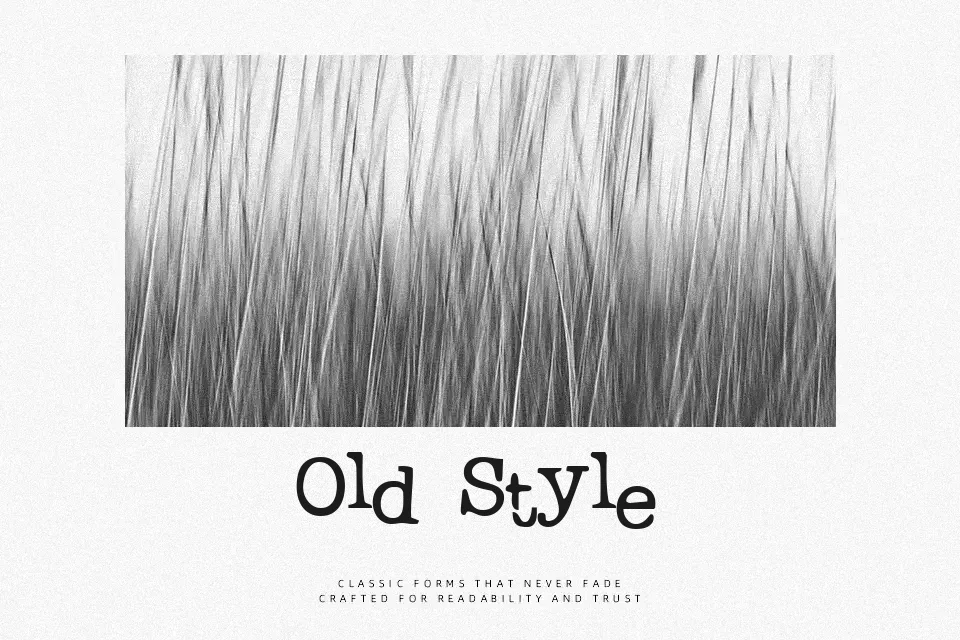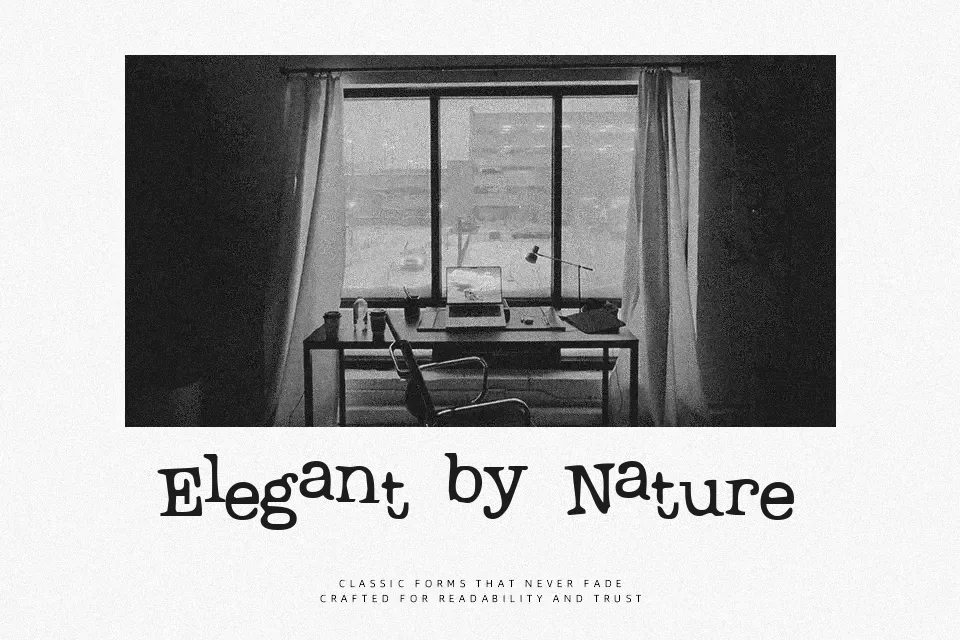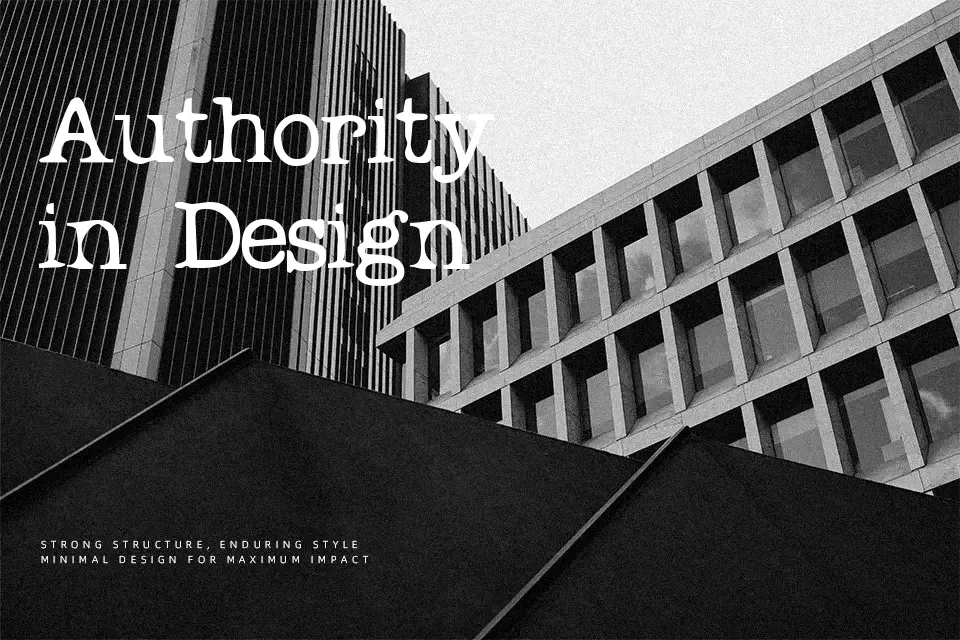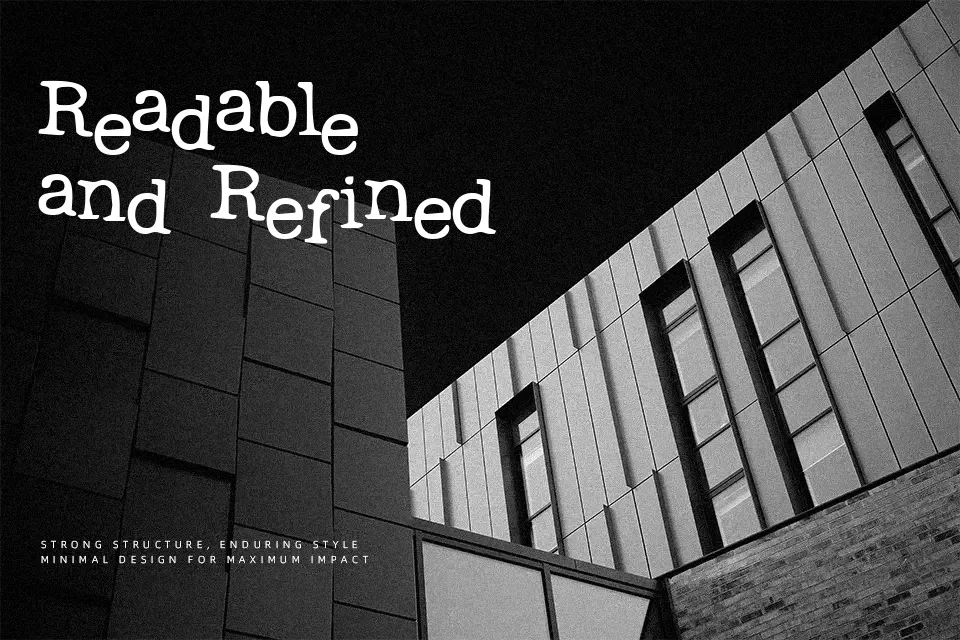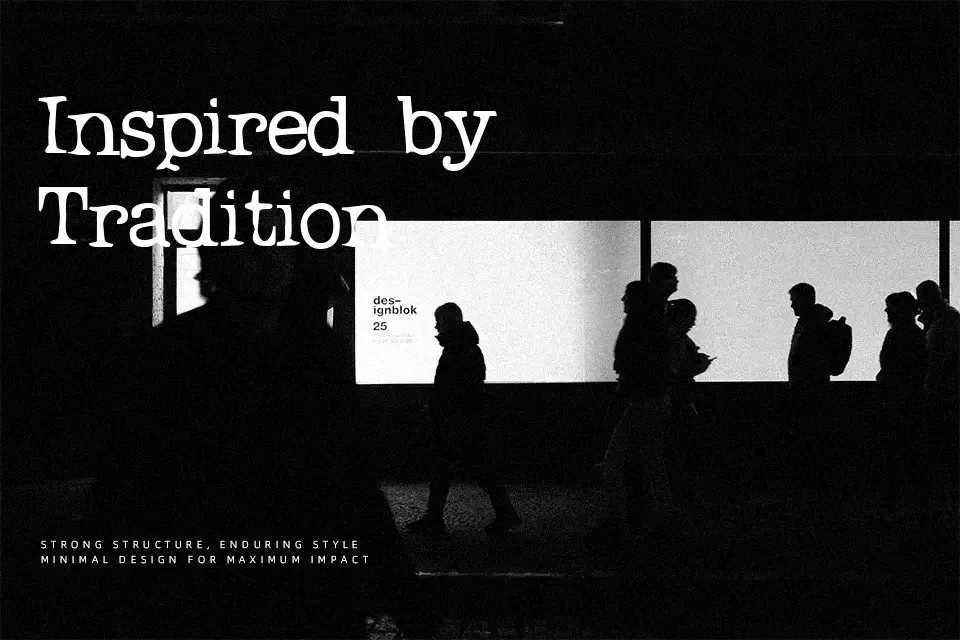
Problem Secretary Font
Designed by Dry Heaves Fonts
Problem Secretary Font delivers a mechanical, distressed typewriter aesthetic with varying stroke weights and textured letterforms. The characters feature classic slab-serif terminals and a slightly uneven baseline, creating a beautifully imperfect visual rhythm reminiscent of vintage typed documents. Its open but rigid spacing helps maintain clarity in medium-sized headers and short creative copy. The slightly worn edges add an authentic tactile quality that works exceptionally well for indie editorial spreads, retro packaging, or moody graphic posters. However, the uneven stroke texture becomes less effective at smaller sizes, making it less suitable for long paragraphs or dense reading materials. Ultimately, the raw, unpolished character brings a strong sense of nostalgia to any display setting.
retro editorial spreads
indie zine headlines
vintage product packaging
moody graphic posters
dense paragraph text
Perfect for editorial, headline, and packaging, with a grunge and decorative style.